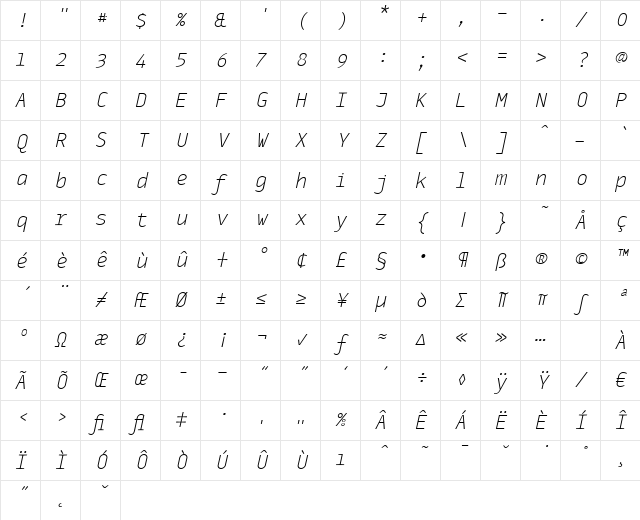
Complete MonoxExtraLightItalic Regular glyph index. Displaying only characters natively supported by MonoxExtraLightItalic Regular font.
MonoxExtraLightItalic uses fixed-width spacing throughout, giving it the structured, systematic character associated with coding environments and technical documentation. The slanted form adds forward momentum and visual energy. Its slender proportions lend an understated elegance to any composition.
Pro Tip: Use MonoxExtraLightItalic with slightly increased line-height for extended reading - fixed-width spacing can feel dense in longer passages without extra breathing room.